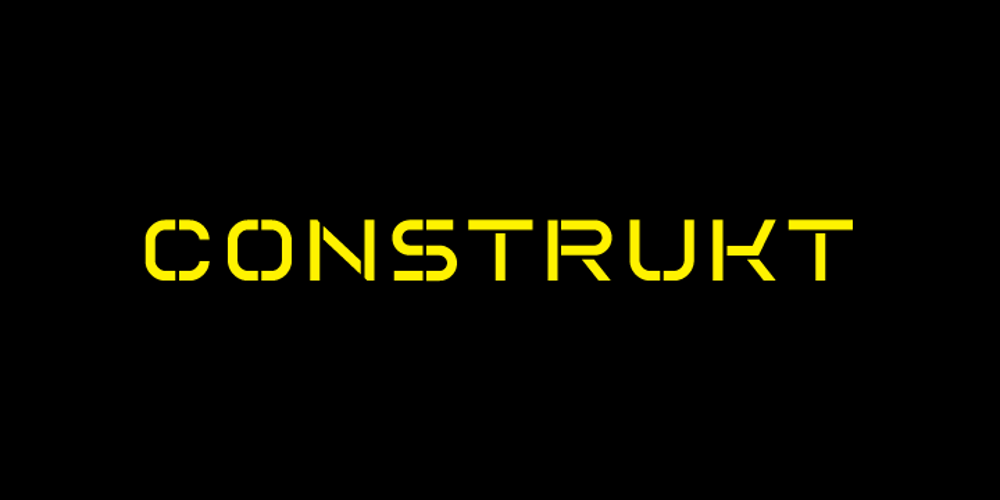
Construkt Unicase Font Family was designed by Richard D. Granados and published by Stereo Type Haus. Construkt Unicase contains 3 styles and family package options. Construkt is a unicase hybrid headline typeface characterized by its sleek curves and extended forms. The family of 3 weights and alternative characters allow for greater versatility and a variety of upper and lowercase effects.